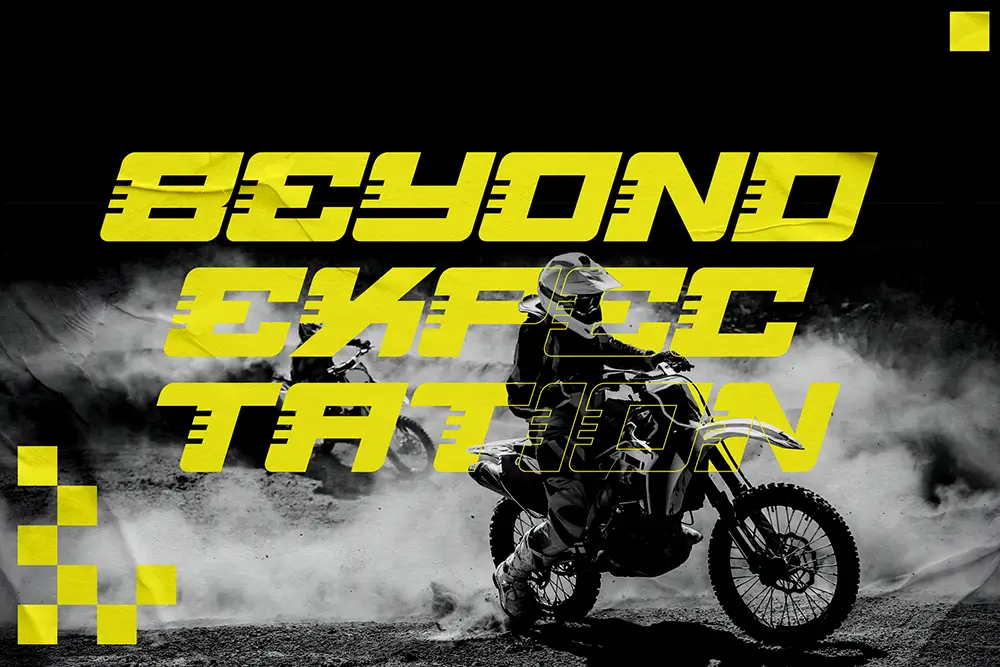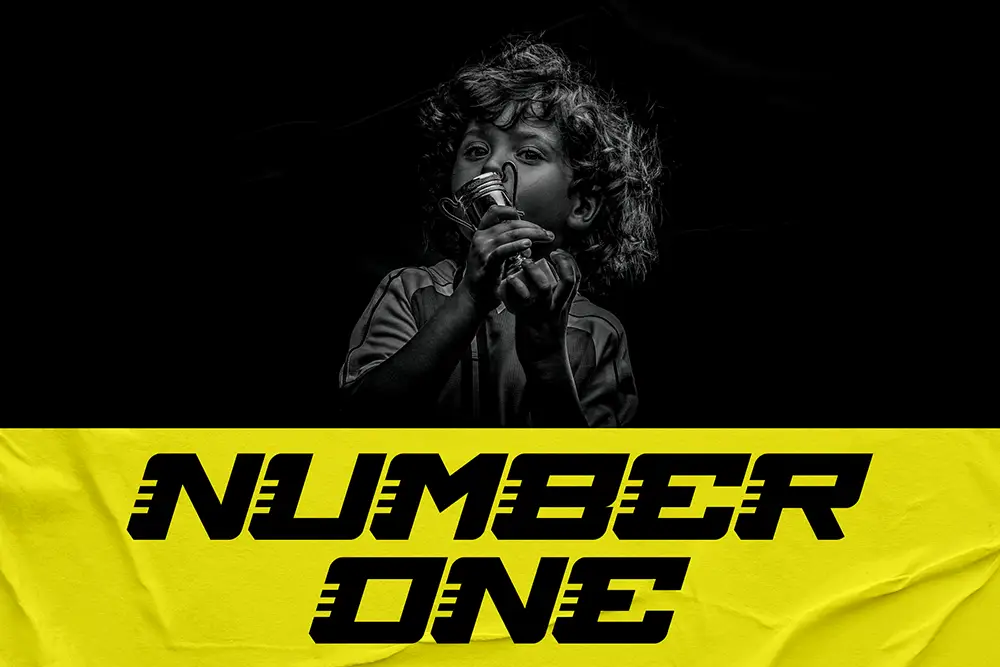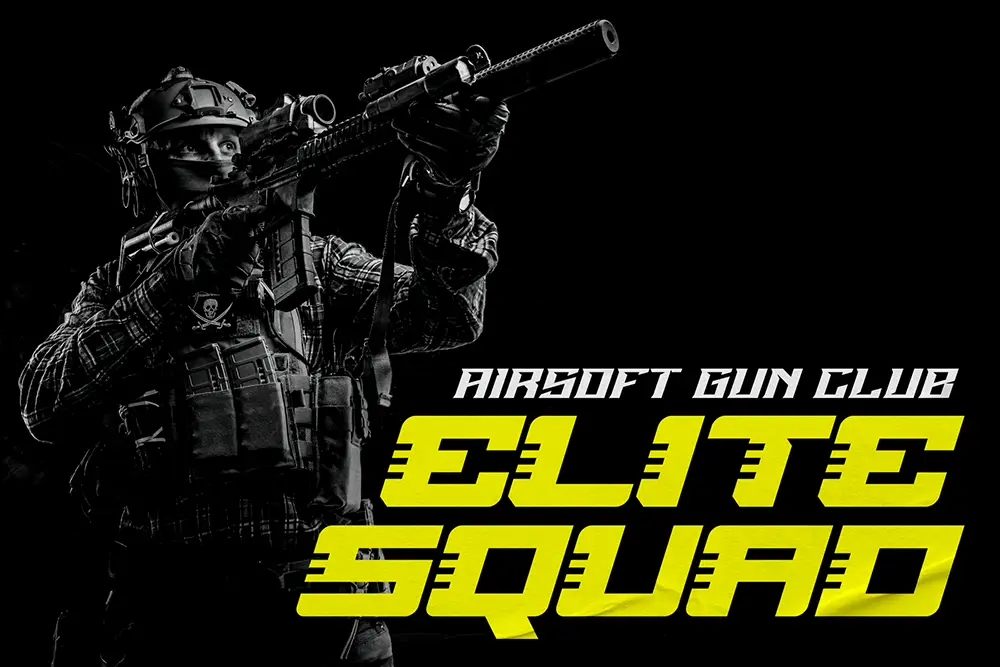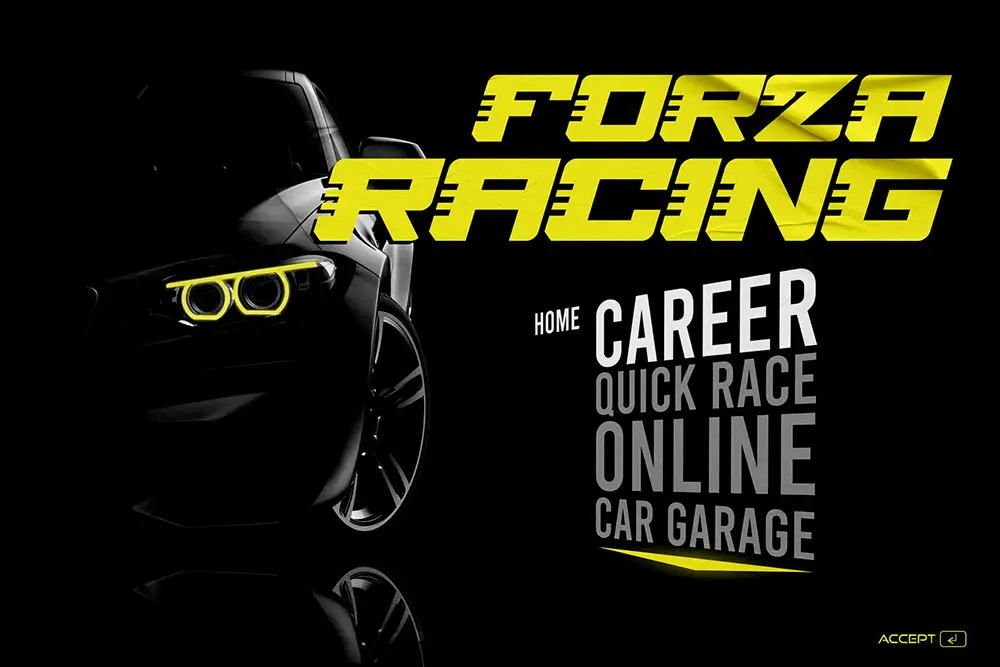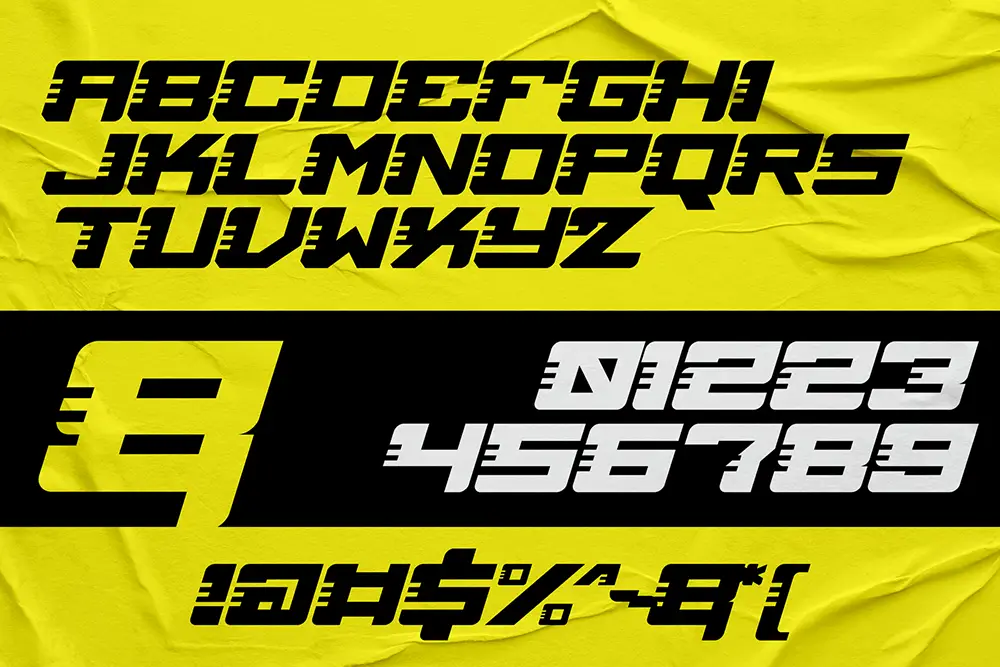
Race Freak
Drive your message with a powerful racing font built for adrenaline-fueled designs.
Overview: The Ultimate Font for Racing-Inspired Design
Looking for the best racing font to supercharge your project? Meet Race Freak, a high-octane typeface that captures the speed, power, and intensity of motorsport culture. Whether you’re designing for race events, automotive branding, or action-packed visual graphics, Race Freak racing font will give your work the boldness it deserves.
Designed in all uppercase characters, Race Freak blends angular geometry with aerodynamic curves, making it the go-to choice for speed-themed fonts, sports event posters, and everything in between. Its aggressive letterforms and sleek silhouette make your headlines shout, your branding stand out, and your layouts race ahead of the competition.
Key Features
• All Caps Characters – For an intense and uniform headline structure.
• Multilingual Support – Includes essential characters to support various Latin-based languages.
• Bold & Impactful Style – Inspired by speedometers, asphalt streaks, and motor decals.
• High Legibility – Designed to remain readable at high speeds, even in compact spaces.
Why Designers Love Race Freak
Designers gravitate toward Race Freak because it instantly injects energy into layouts. Its forms suggest movement, competition, and raw power, making it perfect for:
• Car race posters
• Gaming UIs and titles
• Extreme sports branding
• Speedway signage
• Action movie intros
Plus, the multilingual support makes it a top pick for global design projects targeting international audiences. From Formula 1 to futuristic gaming worlds, Race Freak typeface adapts and dominates.
Pair It Like a Pro
To elevate your design further, try pairing Race Freak with clean and assertive sans serifs like:
Combining bold sans serif and gritty brush fonts helps you build a powerful typographic hierarchy that screams intensity.
Use It Anywhere
Whether you’re creating digital ads, race event posters, esports branding, or print media, Race Freak works brilliantly across:
• YouTube thumbnails
• Motorsport event branding
• Video game covers
• Urban racing merchandise
• Website headers
• Car wrap graphics
• Digital dashboard interfaces
Final Lap: Why Race Freak Belongs in Your Font Garage
Race Freak isn’t just a typeface—it’s a statement of speed, power, and precision. Every glyph reflects a high-performance ethos that brings urgency to your visuals. Whether you’re revving up a racing campaign or crafting futuristic product branding, this racing-inspired font will give you the edge.
So shift into high gear. Burn rubber on every design project.
Race Freak is built for creators who never slow down.